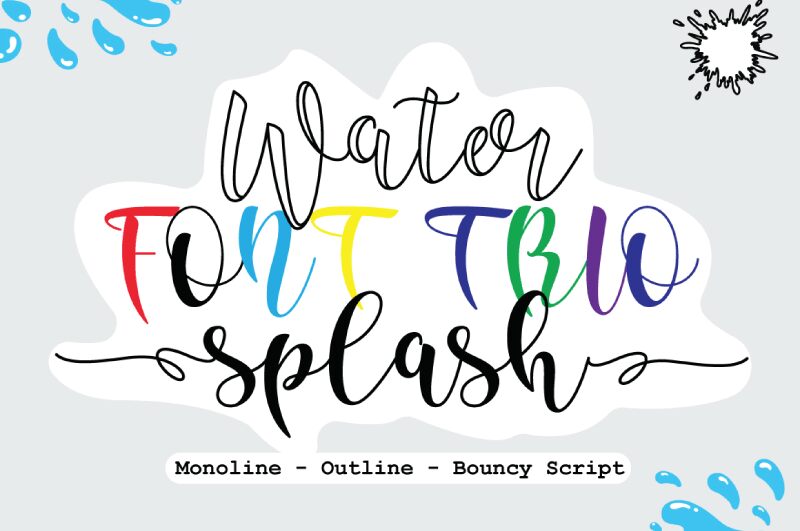
Water Splash Monoline, designed by Miftah Arzaq, embodies the elegance of handwritten artistry. Its gentle and fluid strokes evoke a sense of personal touch and creative flair that stands out in a world dominated by digital perfection. The font's light brushwork lends an air of finesse and subtlety to its appearance, making it ideal for designs that require a hint of sophistication without overwhelming the senses.
Its charming style is perfect for invitations, branding, or any project needing a splash of individuality. Water Splash Monoline's graceful curves are reminiscent of calligraphy penned with an artist's steady hand, ensuring that every word looks effortlessly stylish and distinctively human.